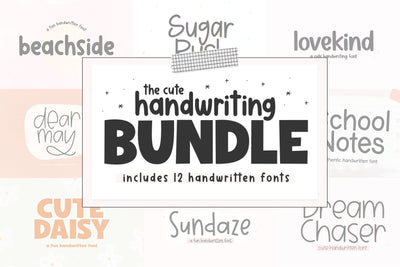
Cute Handwriting Font Bundle
This font bundle is perfect for planners, goodnotes, handwritten notes, cricut projects, stickers, svg designs, logos, shirts, mugs, keychains, procreate designs and more!
This bundle includes a handpicked selection of fonts - both new and old - perfect for planners and crafters!
Fonts Included:
- Lovekind
- Cute Daisy
- Dear May
- Dream Chaser
- Beachside
- School Notes
- Sugar Rush
- Favorite Notebook
- Autumn Market
- Spring Fresh
- Sundaze
- bonus Dear May doodles